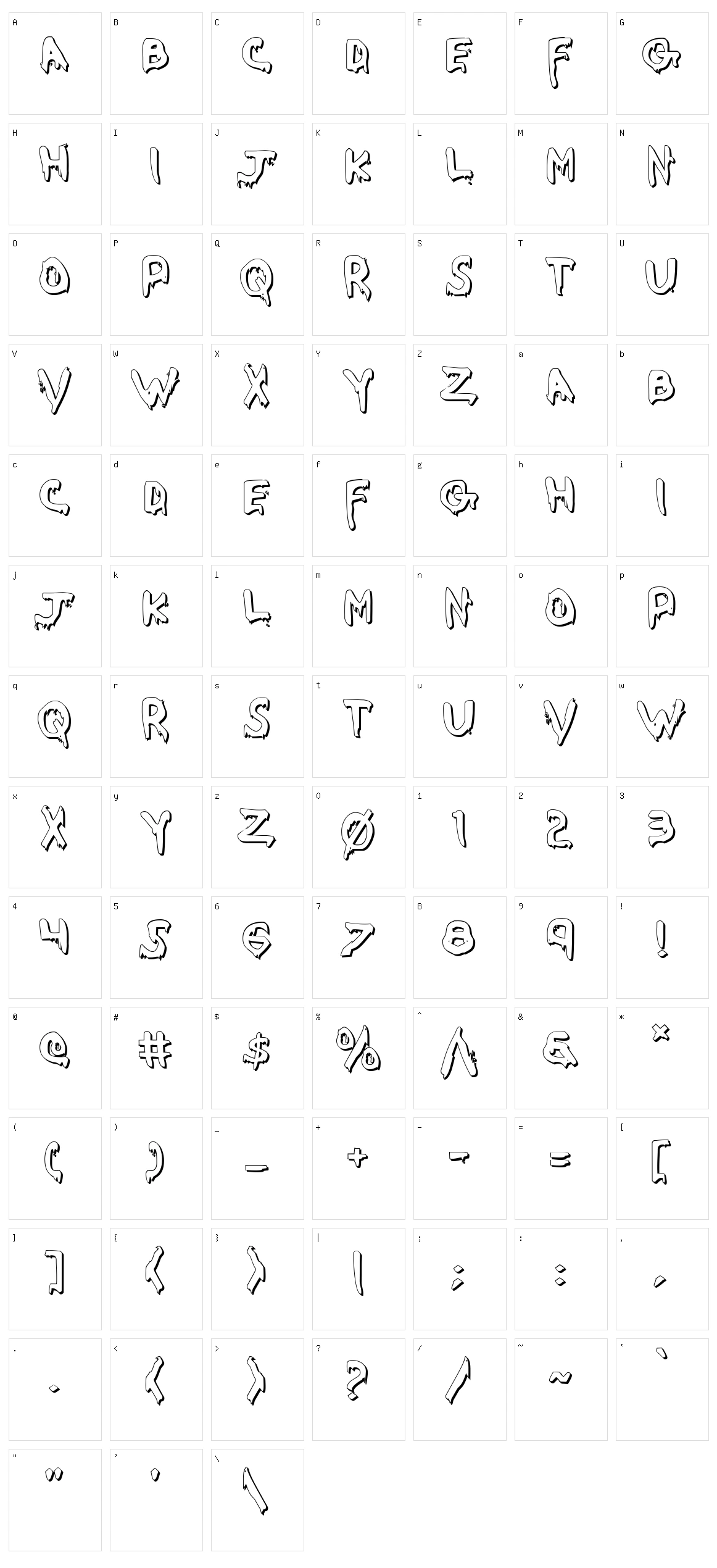
The free font Were Beast is carefully designed by Iconian Fonts, showcasing a thoughtful balance of creativity and usability and falls under the Horror font style. When you download the ZIP file, it contains only 252.17 KB of font files, making it lightweight and quick to download. Please review the license details below to understand permitted usage and distribution rights. If license information is not available, we recommend using this font for personal projects only or contacting the author directly for commercial usage permissions.
2008 Iconian Fonts - Daniel Zadorozny
This font comes with the following 5 versions: Regular, Italic, Leftalic, Condensed, and Shadow.